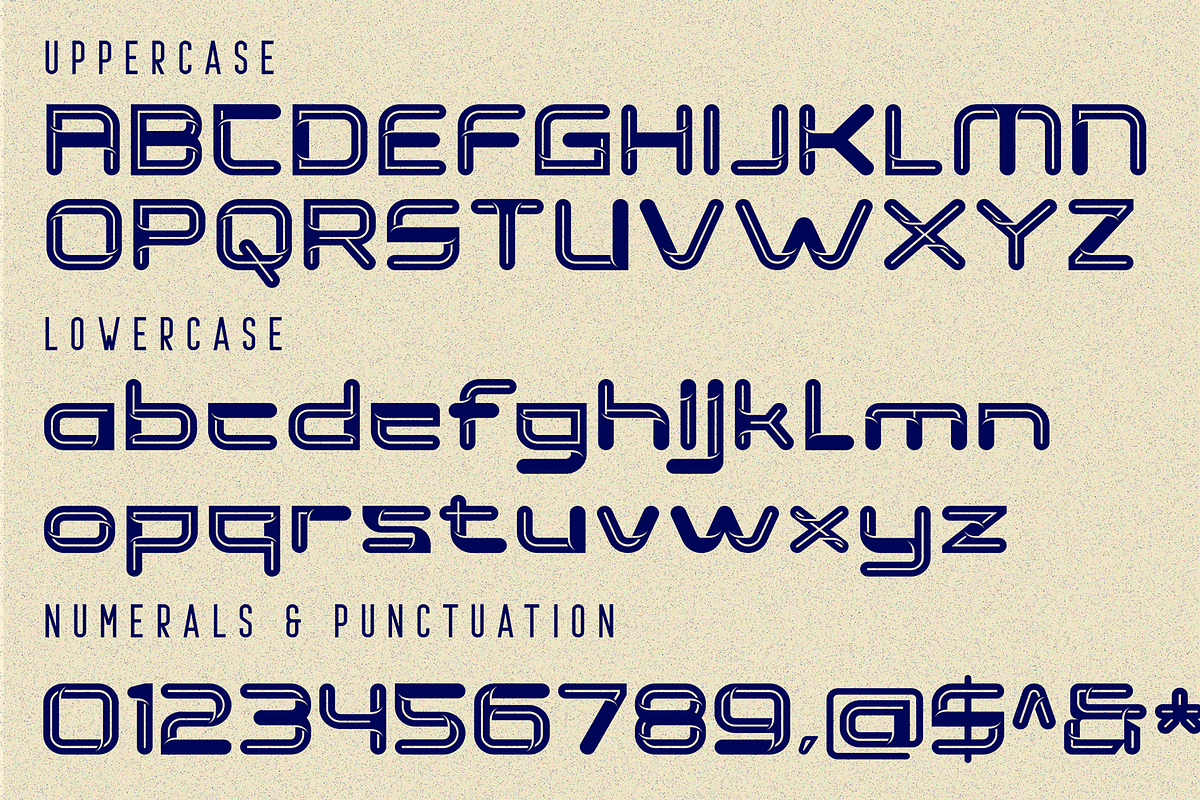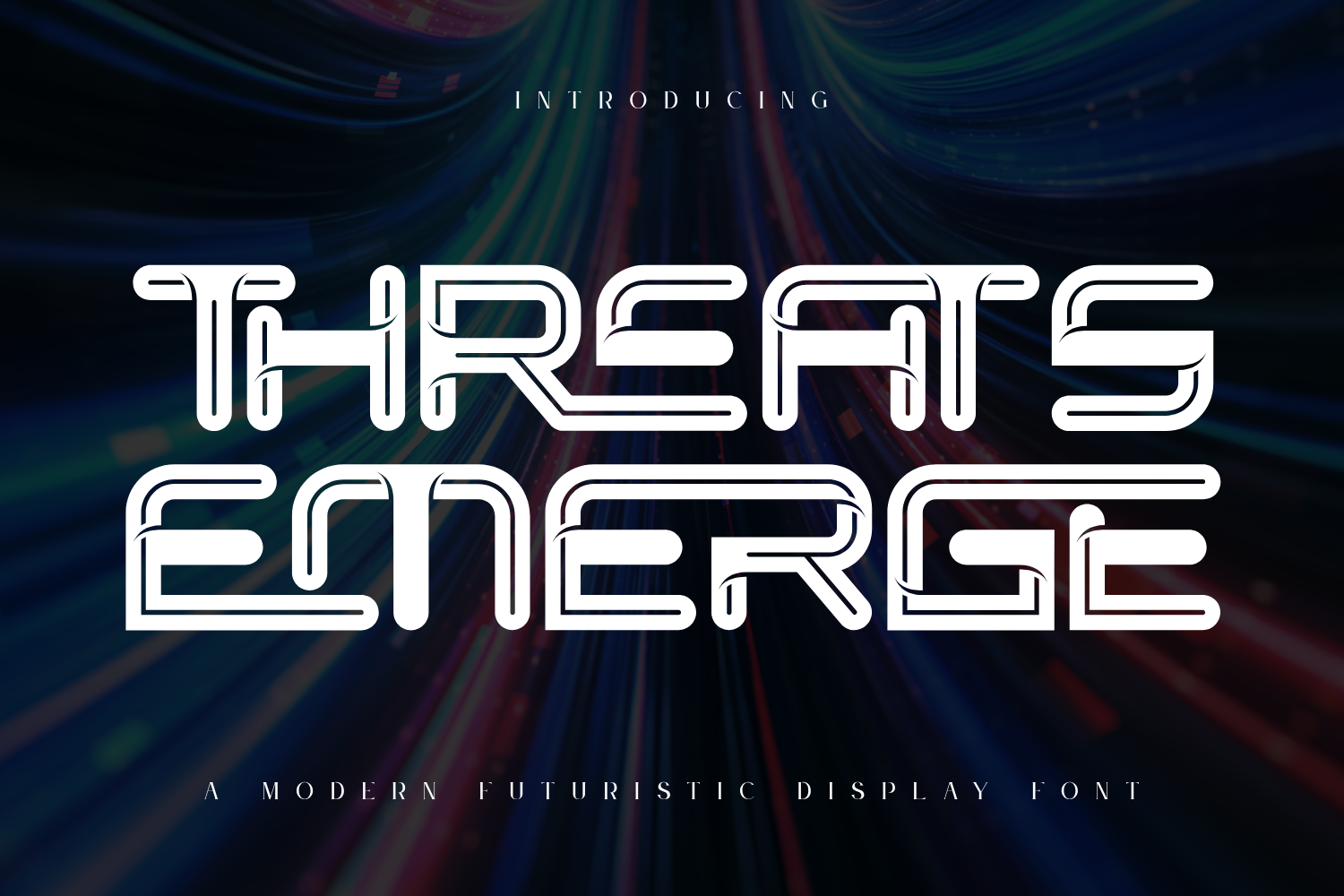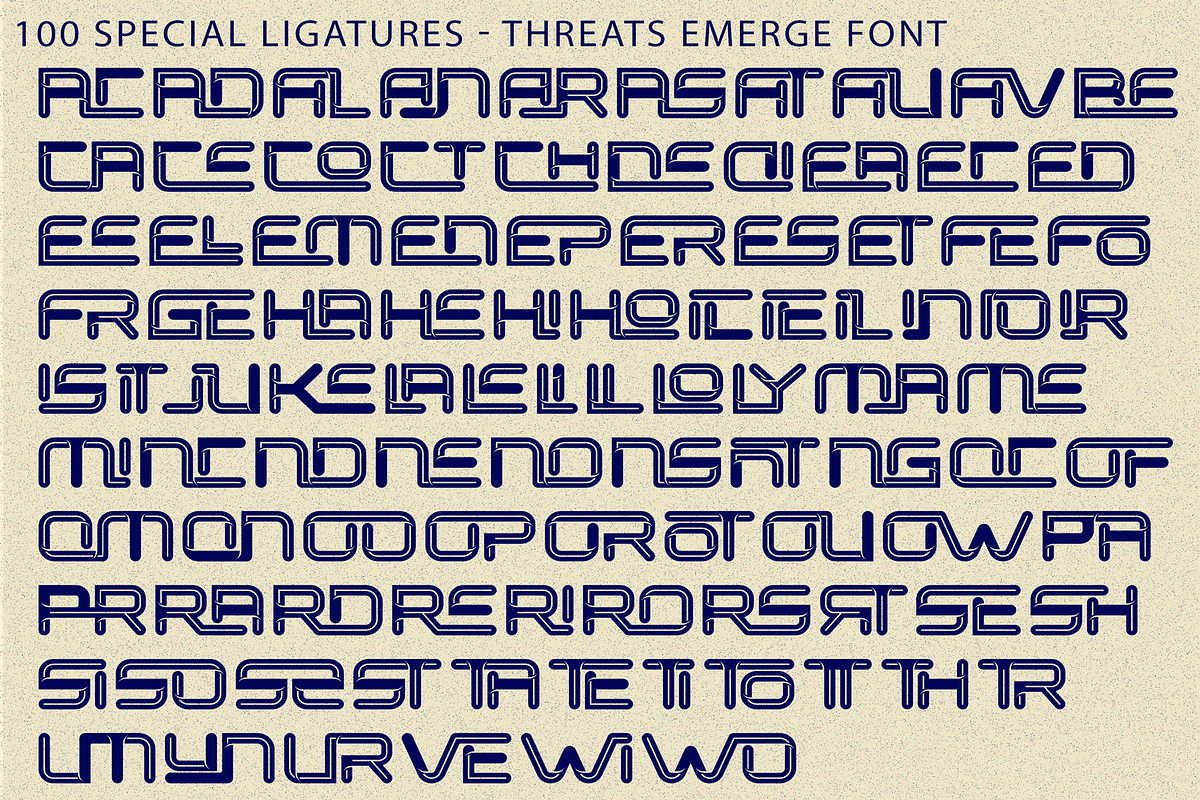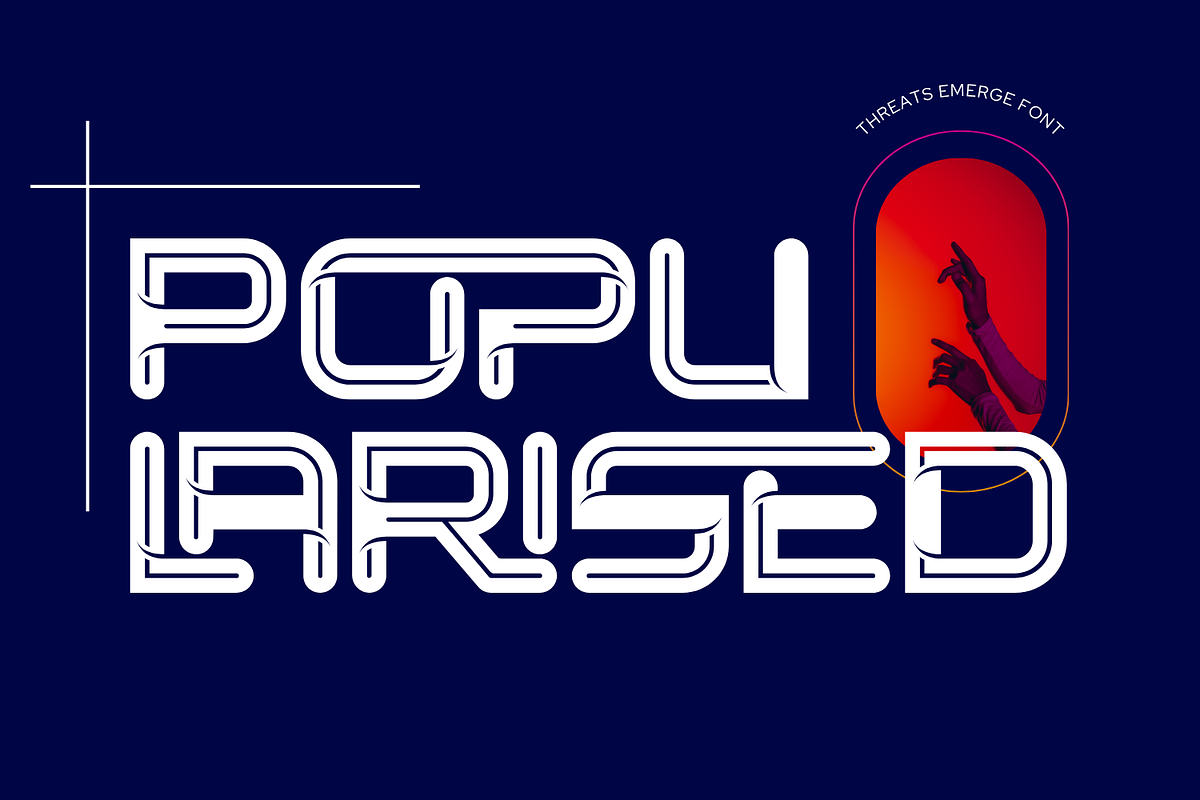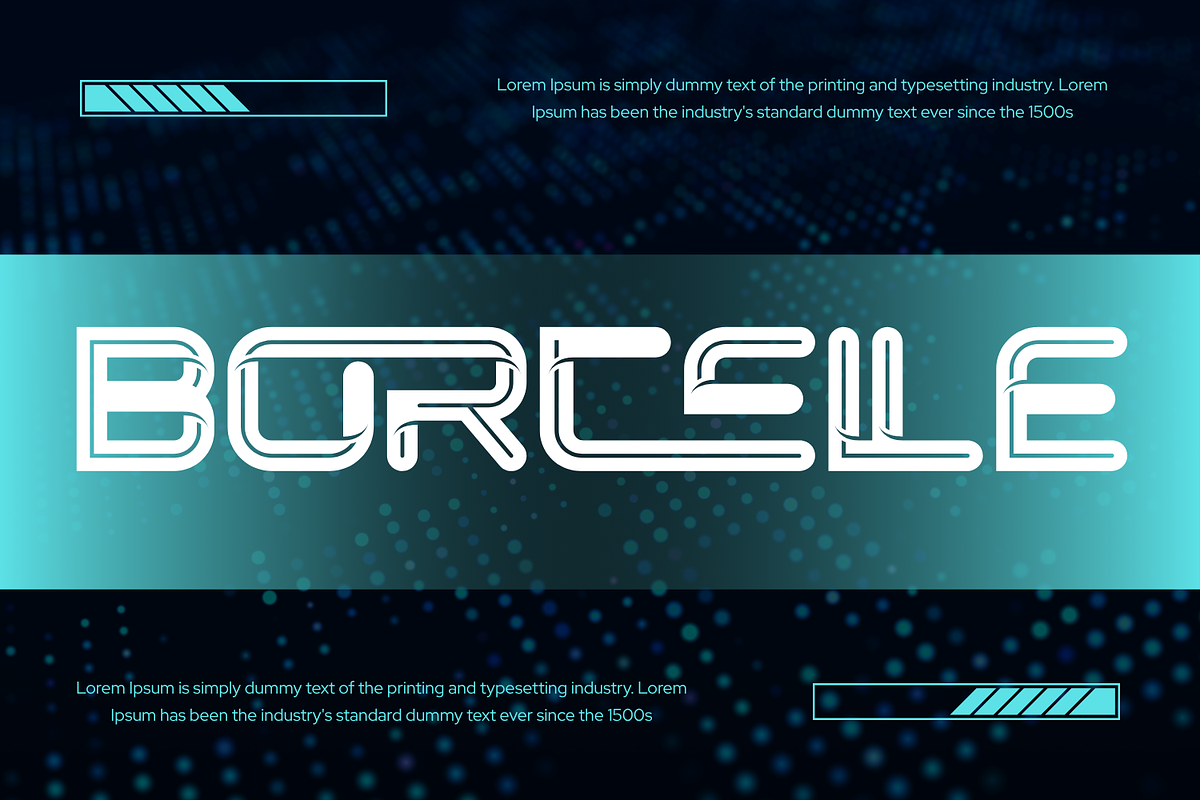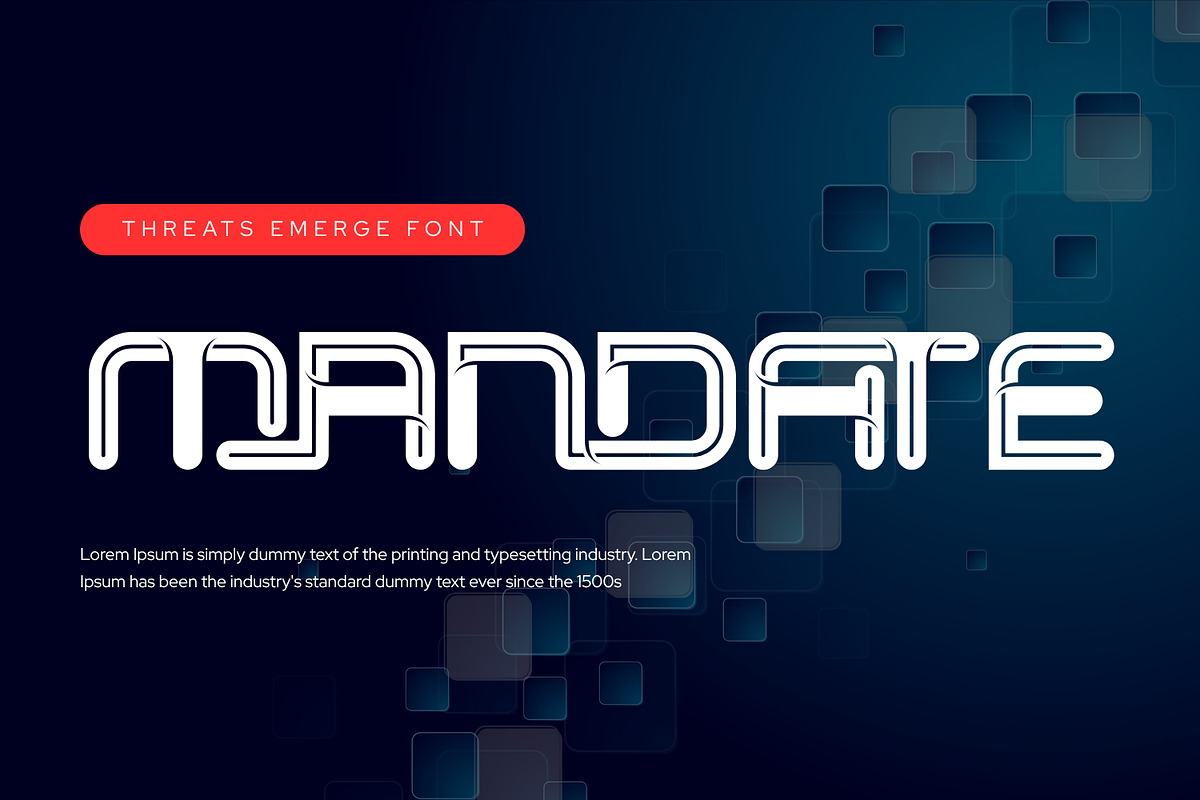
THREATS EMERGE - CYBER FONT
THREATS EMERGE - CYBER FONT is a futuristic outline techno display typeface inspired by cyberpunk aesthetics and modern digital interfaces. Featuring smooth rounded geometry, continuous flowing strokes, and distinctive inline detailing, this typeface creates a sleek and high-tech visual experience. The layered outline structure gives each letter a sense of depth and motion, making it perfect for neon effects and futuristic compositions. THREATS EMERGE is ideal for gaming titles, sci-fi posters, tech branding, UI design, and bold digital artwork.
🔤Features:
- Uppercase & Lowercase Letters
- Around 100 Special Ligatures & Alternates
- Accented Characters for multilingual support
🔤About 100 ligatures combined with Stylistic Alternates Font:
AC AD AL AN AR AS AT AU AV BE CA CE CH CO CT DE DI EA EC ED EE EL EM EN EP ER ES ET FE FO FR GE HA HE HI HO IE IC IL IN IO IR IS IT JU KE LA LE LI LL LO LY MA ME MI NC ND NE NG NO NT NS OC OF OM ON OO OP OR OT OU OW PA PR RA RD RE RI RO RS RT SE SH SI SO SS ST TA TE TH TI TO TR TT UM UN UR VE WI WO